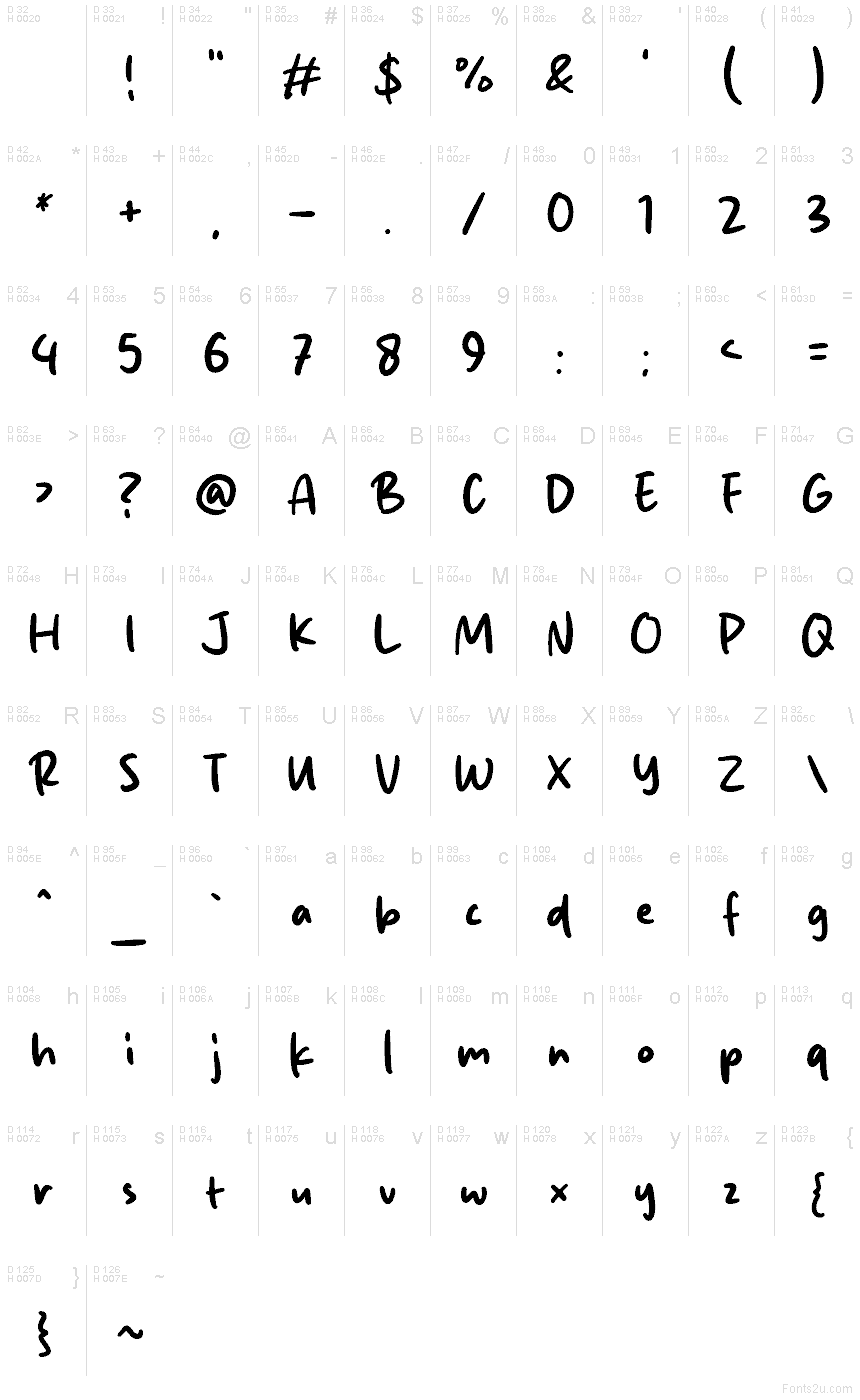
Back Dream
Back Dream font by MJType is a free handwritten typeface with an inky, paintbrush feel that looks like it was written in one confident sweep. Rounded curves, slightly bouncy baselines, and bold strokes give it a warm, approachable energy that still reads clearly at a glance. It has that casual, friendly vibe you’d expect on a hand-lettered sign or a notebook doodle, but with enough consistency to keep layouts clean and polished.
Using Back Dream, you can bring a human touch to Instagram posts, quote graphics, YouTube thumbnails, product packaging, event flyers, and playful branding. The letters hold up well at larger sizes, where the textured strokes feel especially lively. This free font also works nicely paired with a simple sans serif for body text, letting the handwritten title carry the personality while the supporting copy stays calm and readable.